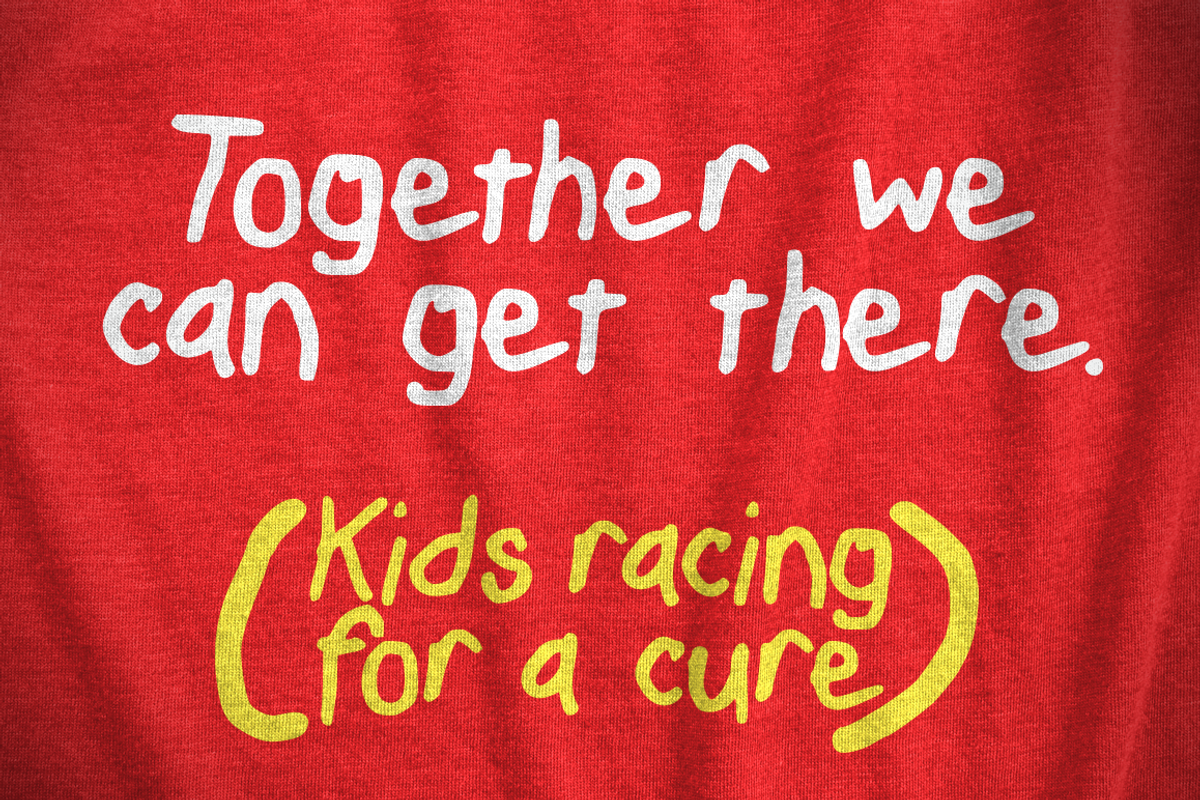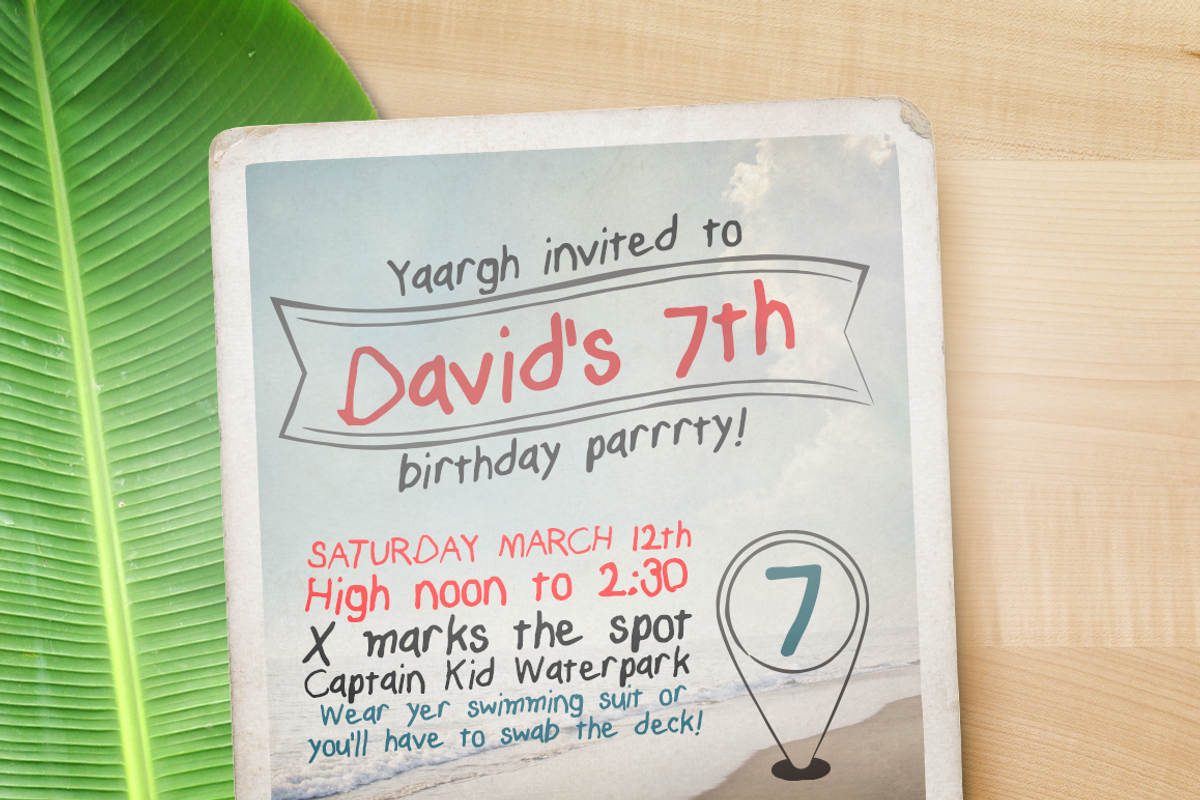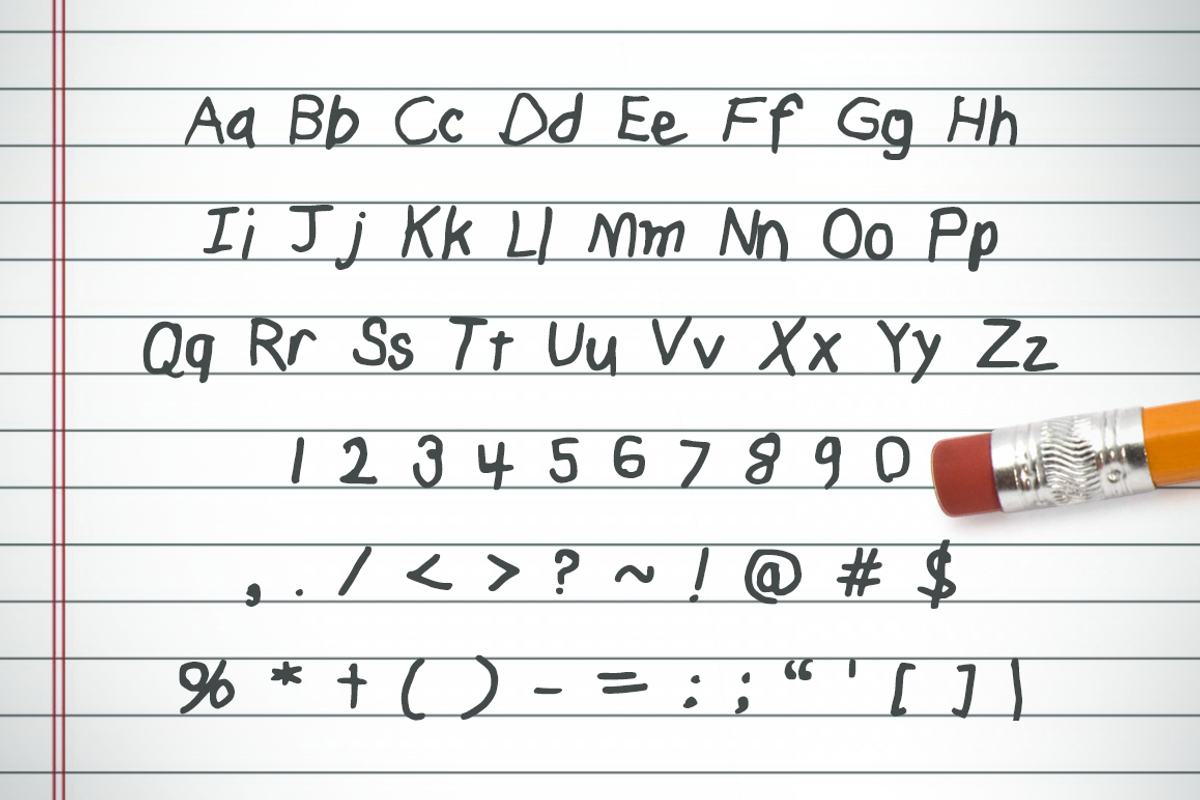
Jonas in the 5th Hand Drawn Kid Font
Jonas in the 5th Hand Drawn Kid Font by NorthCoastCreative is a font selected for branding, posters, packaging, typography.
Why Jonas in the 5th Hand Drawn Kid Font is worth a look
Jonas in the 5th Hand Drawn Kid Font by NorthCoastCreative fits naturally into Branding, posters, packaging, typography.